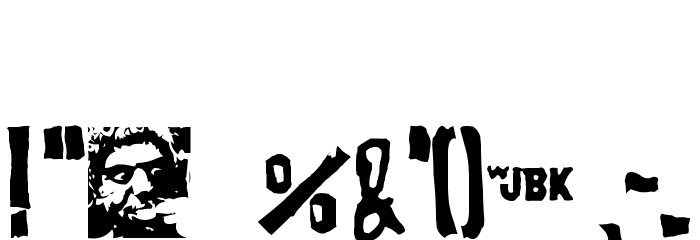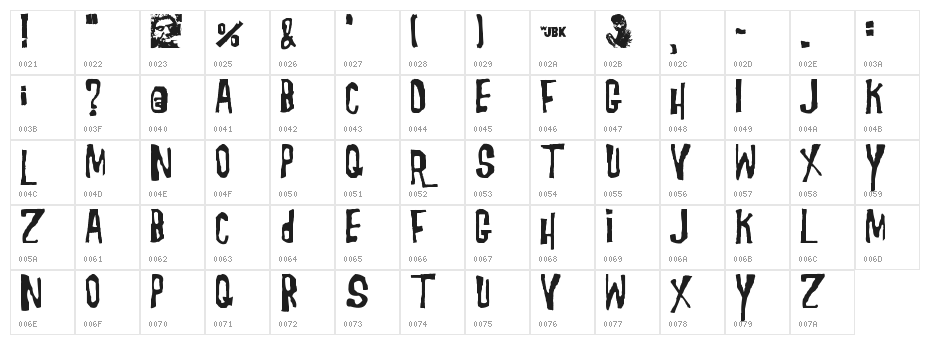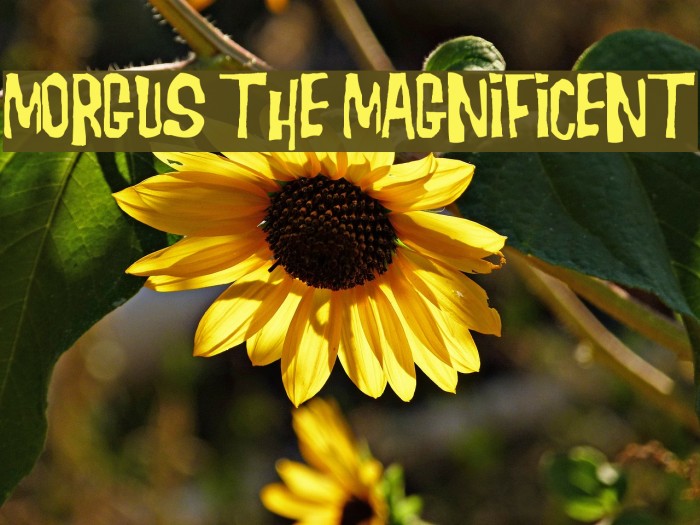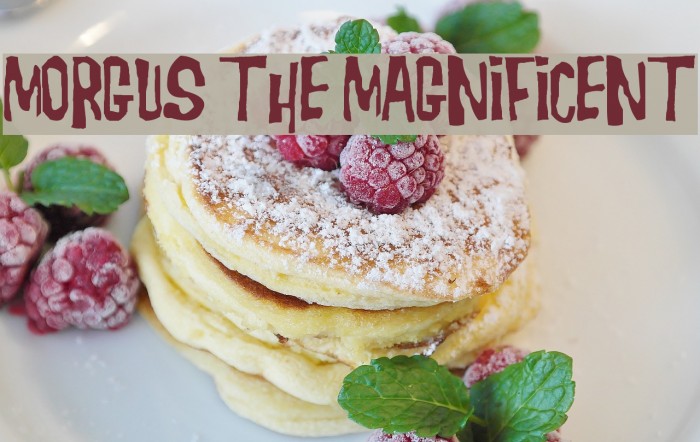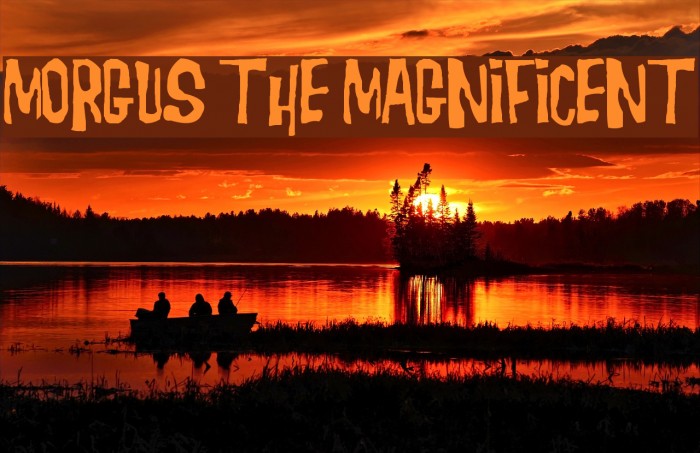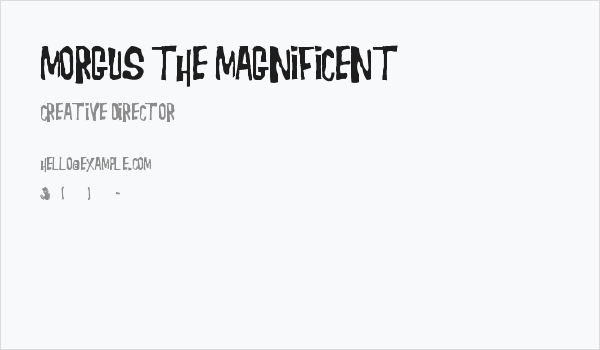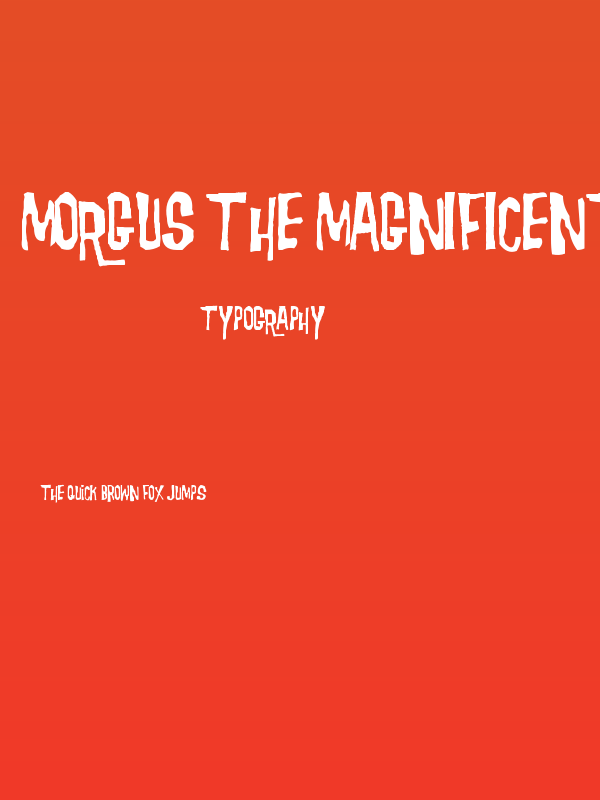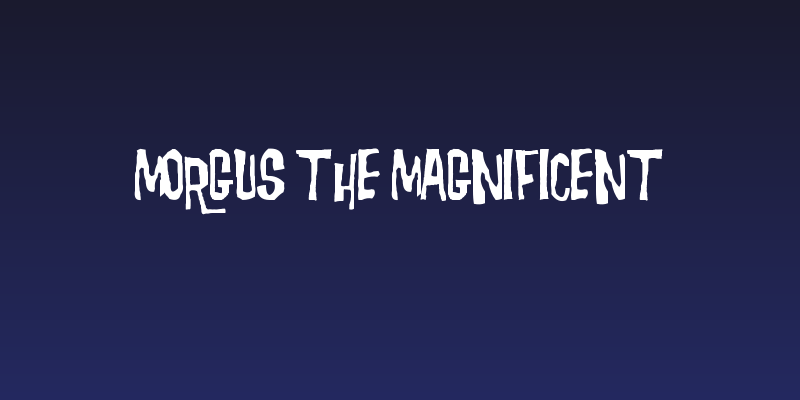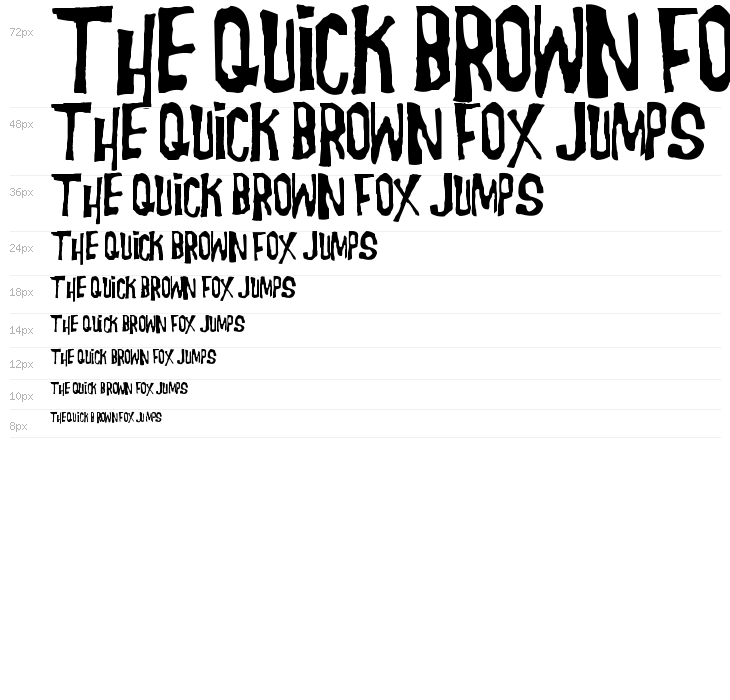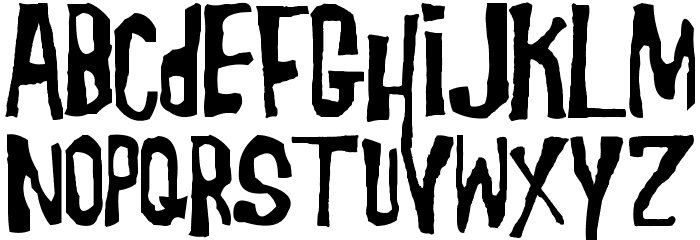
Morgus the Magnificent Font
Morgus the Magnificent Description
This font features a bold and irregular style, characterized by its hand-drawn appearance and uneven edges. The letters are tall and narrow, with a slightly distorted look that gives it a unique, quirky personality. The uppercase and lowercase letters maintain a consistent style, with exaggerated curves and angles that create a sense of movement and energy. The numbers and special characters follow the same aesthetic, adding to the font's cohesive design. This font's playful and unconventional nature makes it stand out, perfect for projects that require a touch of whimsy and creativity.